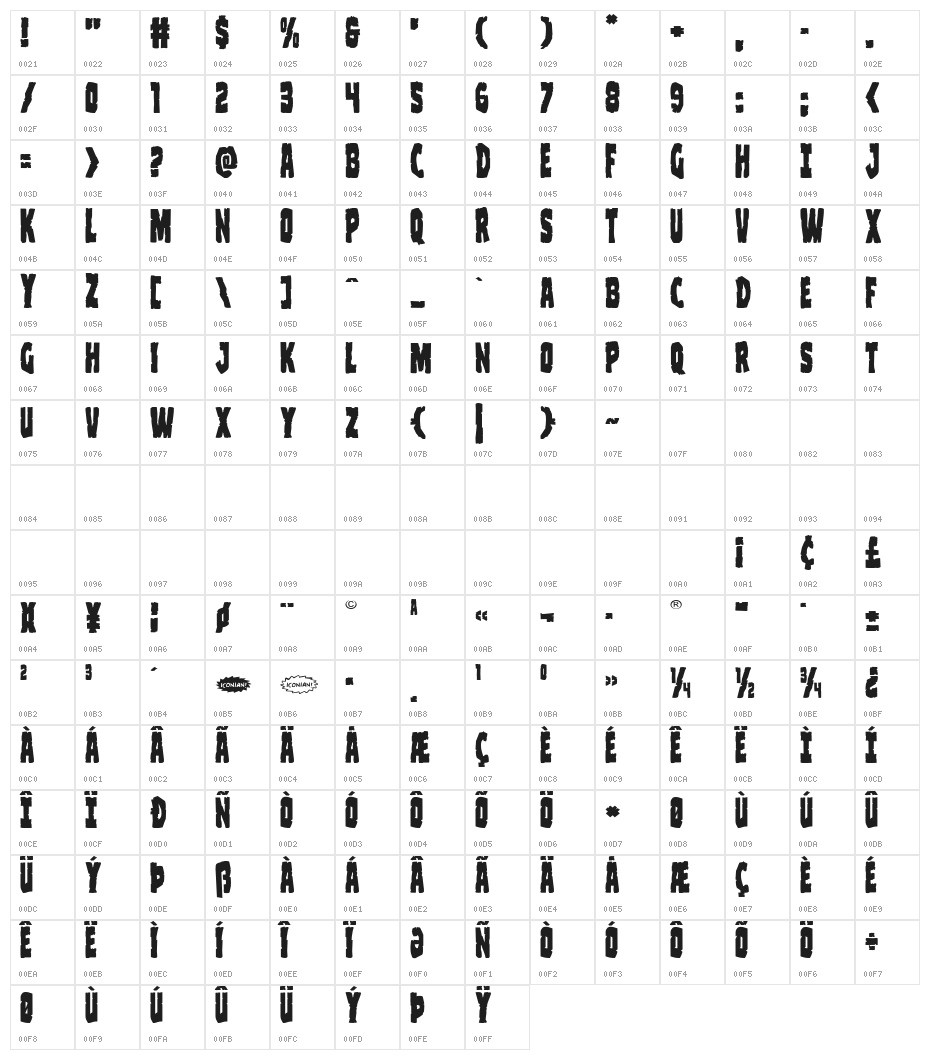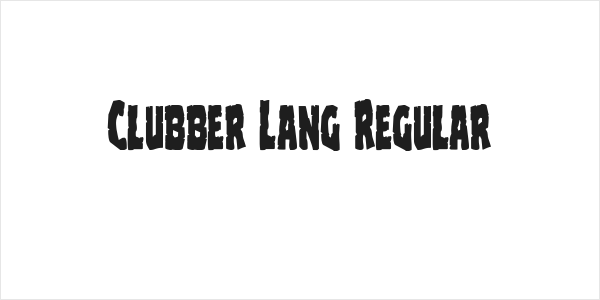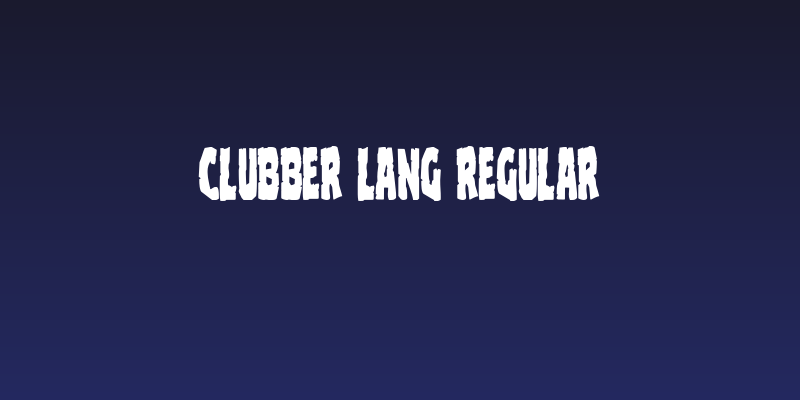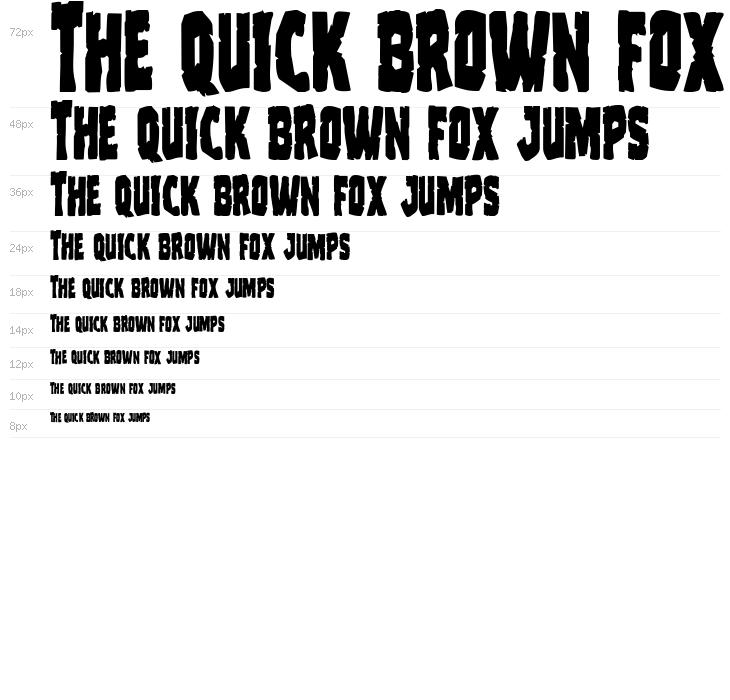
Clubber Lang Regular Font
Clubber Lang Regular Description
This font features a bold and rugged design, characterized by its heavy, block-like letters with irregular edges that give it a distressed, grunge appearance. The uppercase and lowercase letters maintain a consistent weight, creating a strong visual impact. The numerals and special characters follow the same bold style, ensuring uniformity across all glyphs. Its unique, edgy style makes it stand out, perfect for projects that require a bold statement. The font's rough texture adds a tactile quality, enhancing its visual appeal.
| Proposed Projects | Ideal for posters, album covers, urban-themed designs, and branding that requires a strong, edgy look. |